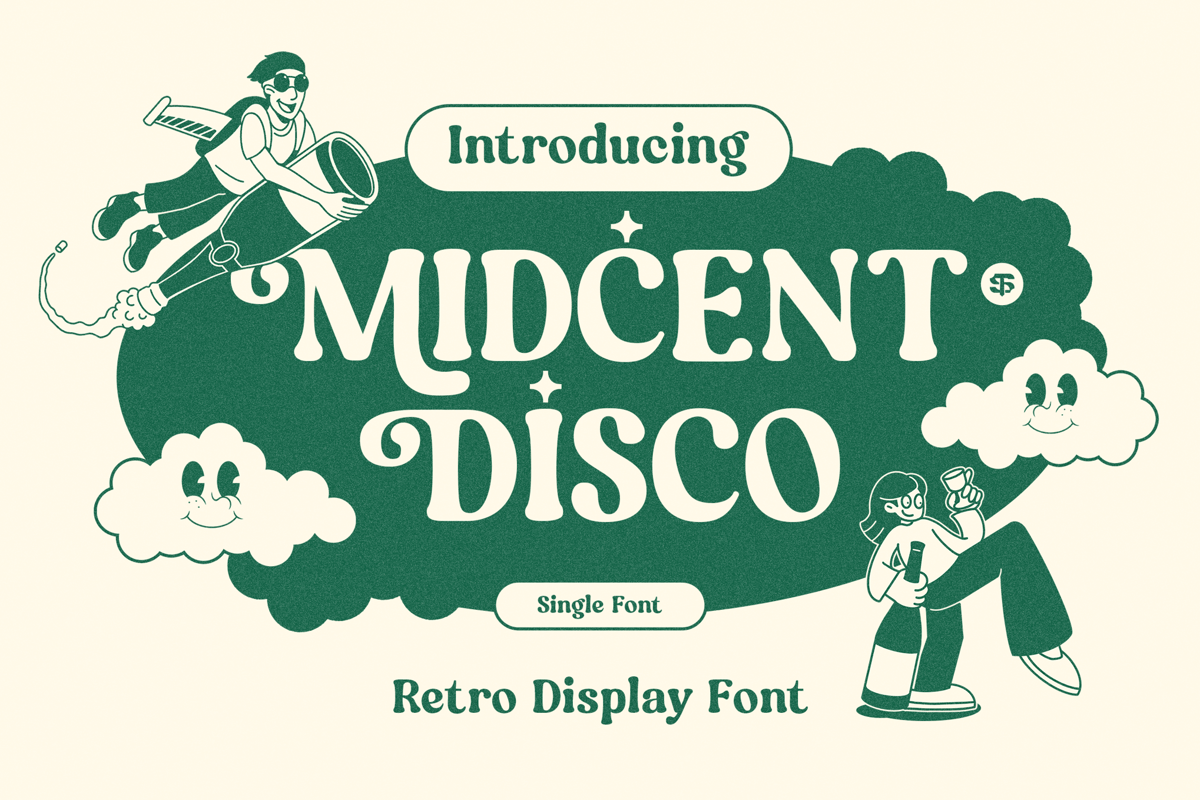
Midcent Disco - Retro Display Font
Transport your designs back to the groovy '60s with Midcent Disco's bold, vintage charm and timeless elegance. This stylish and daring typeface captures the nostalgic essence of the 1960s era, perfect for creating attention-grabbing posters, memorable logos, captivating website designs, and distinctive packaging that stands out from the crowd. The font's bold strokes and wide letterforms deliver an irresistible vintage allure that blends audacious style with sophisticated appeal. File Includes: ...